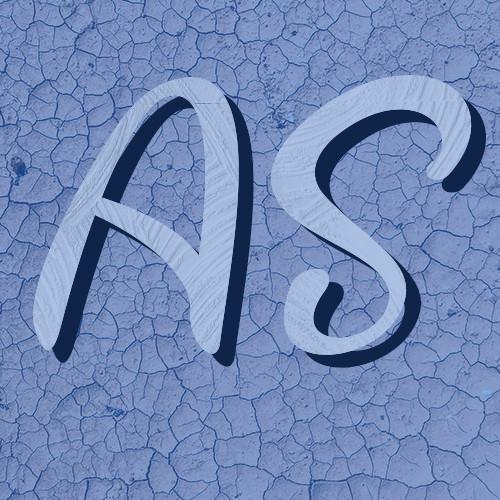
Artles Font Description
Artles is a splendid handwritten font made for t-shirts, letters of mockup cups, shop names, healthy drinks, packaging products, and all aspects that require high-quality fonts! The graphics in this font, such as characters and kerning, are suitable for use in all aspects of your crafty projects.